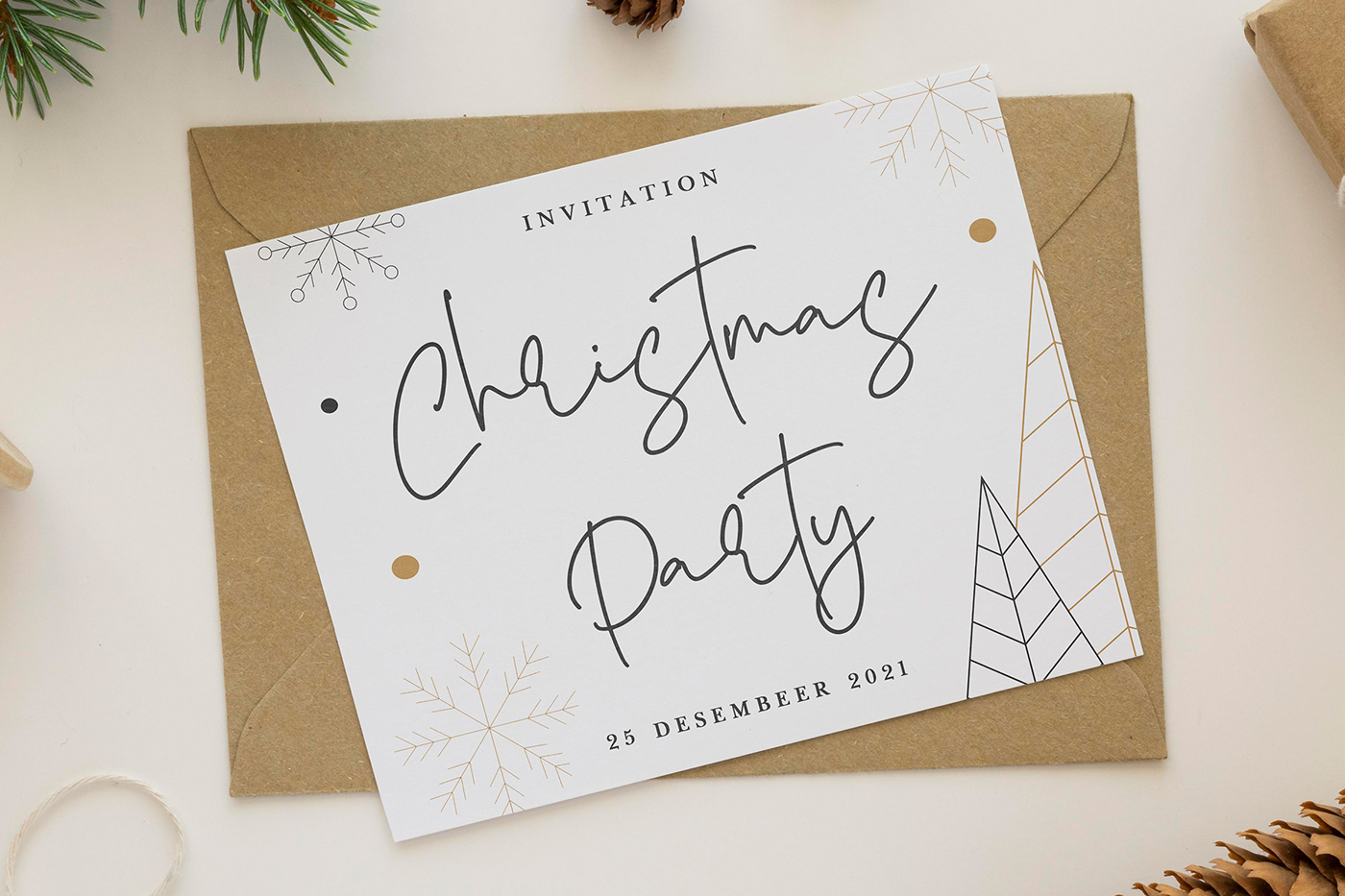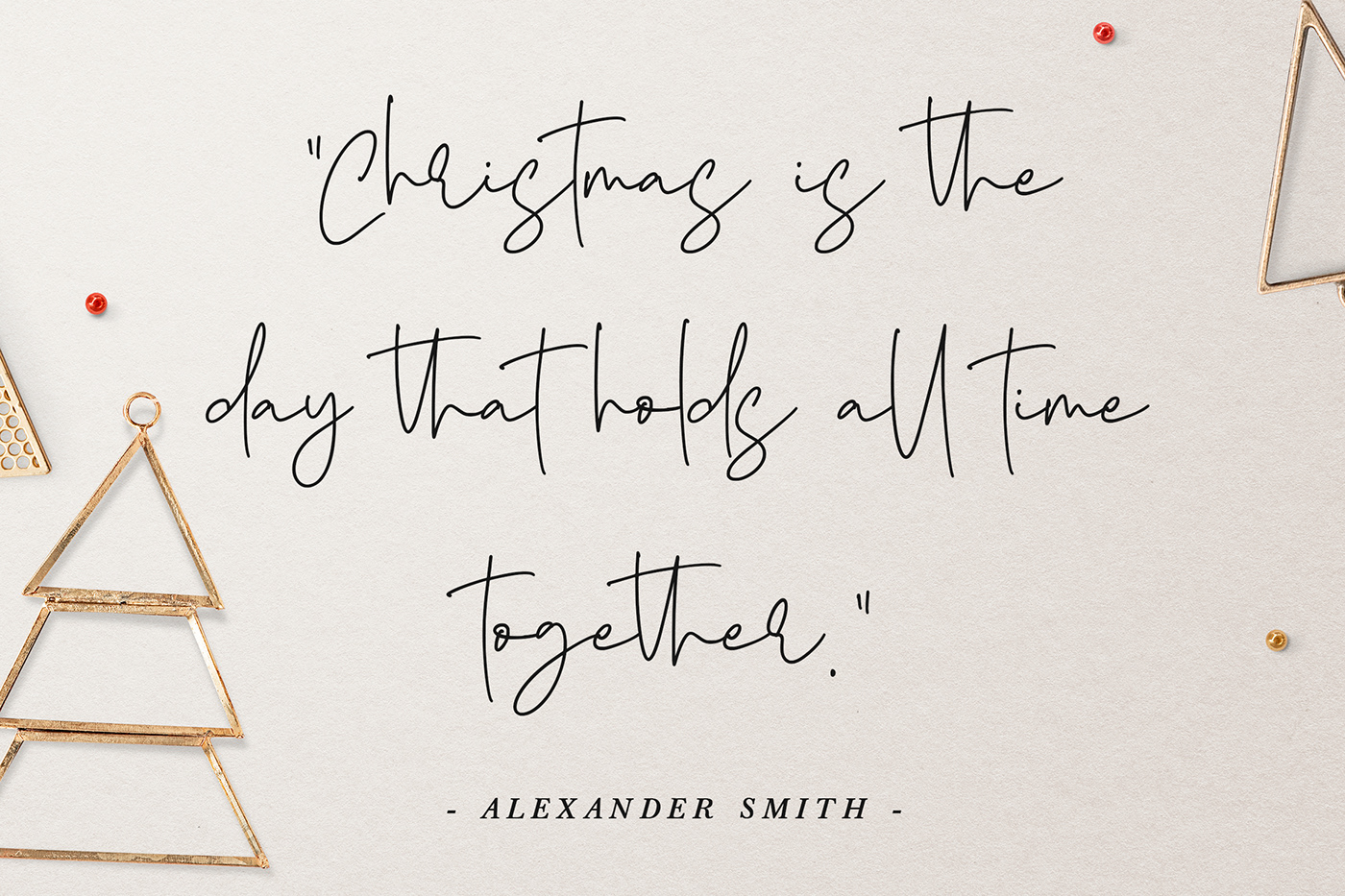
Introducing Yearbook Christmas, a beautiful calligraphy font from Ardenx Studio. This font's distinctive handwritten characters are perfect for branding projects, logos, wedding designs, media posts, advertisements, product packaging, product designs, labels, photography, watermarks, and more. Yearbook Christmas includes a full character set with numbers, punctuation, ligatures, and multilingual support.